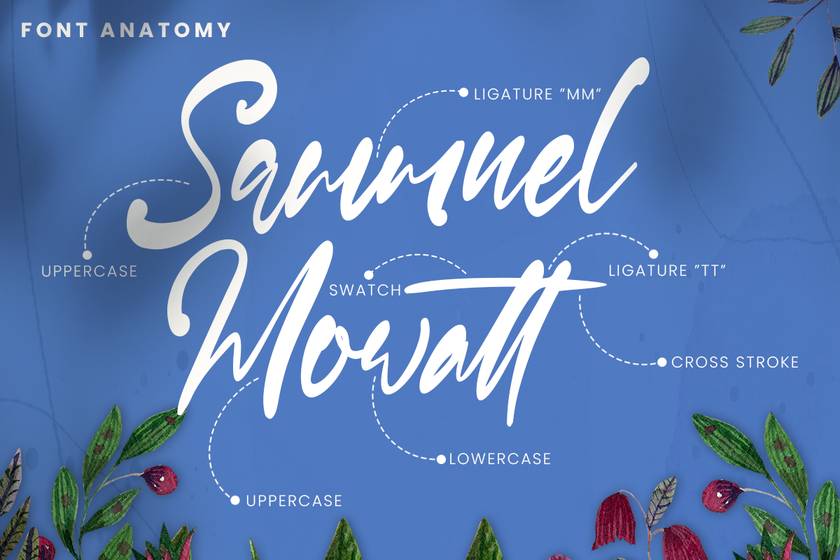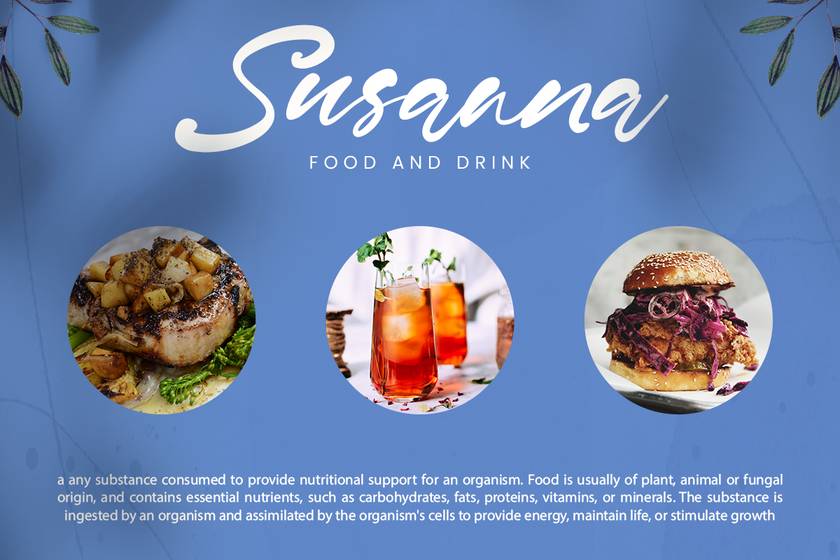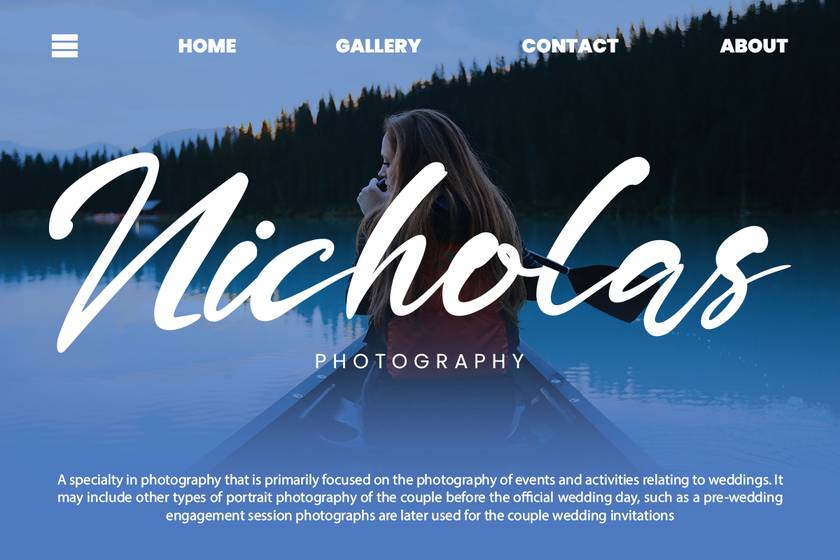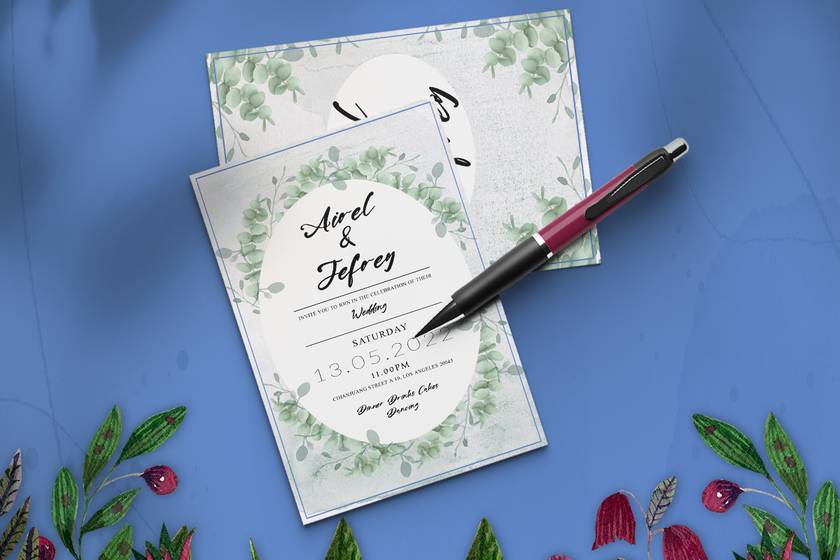
Mario Emma is an elegant, script-style font featuring flowing, cursive letterforms with moderate contrast and smooth, natural strokes that give it a handcrafted feel. Its stylish and sophisticated look makes it perfect for luxury branding, wedding invitations, and any design aiming for a refined, personal touch. This font works beautifully in headlines or decorative text where elegance and warmth are desired.
Mario Emma Font